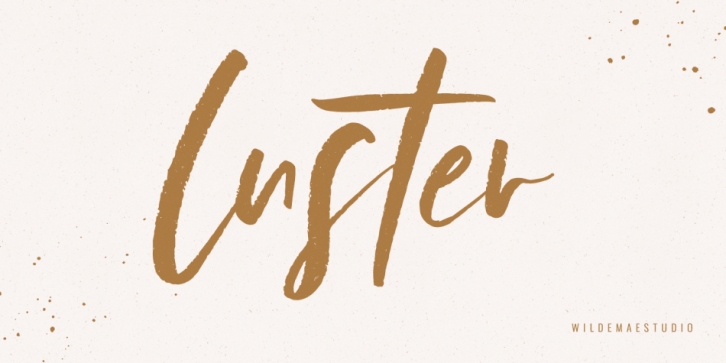
luster is a modern calligraphy and script font published by Wilde Mae Studio.
Aloha! Luster is a stylish, handwritten brush script font perfect for creating beautiful logos, signage, social media, blog posts, styled quotes, packaging, and more! Luster is stylish and carefree + handcrafted with lots of love for your beautiful projects ♡
Coming to you with 22 styled ligatures & alternate letters to create a totally beautiful, authentic, hand lettered look.